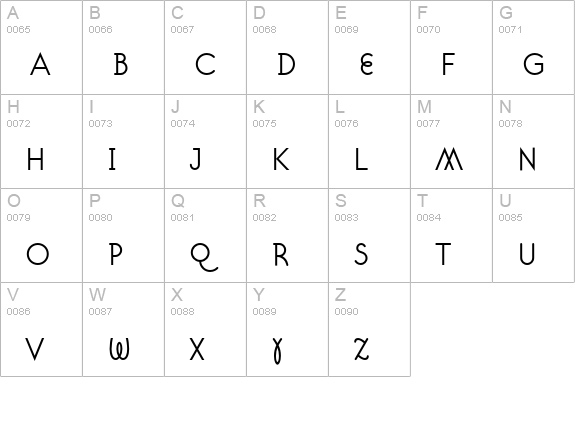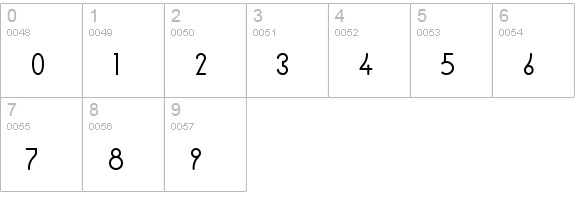
SuburbanLight Font Details
SuburbanLight font exudes an aura of modern elegance and sophistication. Its sleek lines and gentle curves make it perfect for a wide range of design projects, from invitations to branding materials. This versatile font strikes the perfect balance between professionalism and creativity, making it a go-to choice for designers looking to make a statement. What sets SuburbanLight font apart is not just its aesthetic appeal, but also the fact that it is available for free download. Yes, you read that right - this stunning font can be yours at no cost. Simply head over to FontsMarket.com and start incorporating this beautiful typeface into your designs today. Don't miss out on the opportunity to elevate your projects with SuburbanLight font - the perfect blend of style and accessibility.